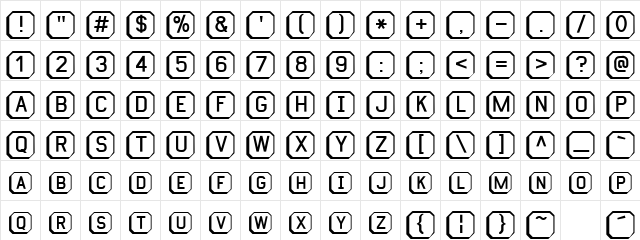
Keyboard Regular Free Font
Keyboard Regular
Keyboard Family
Design Context for Keyboard
Keyboard is a composed and adaptable typeface that performs quietly and consistently across a wide range of design contexts.